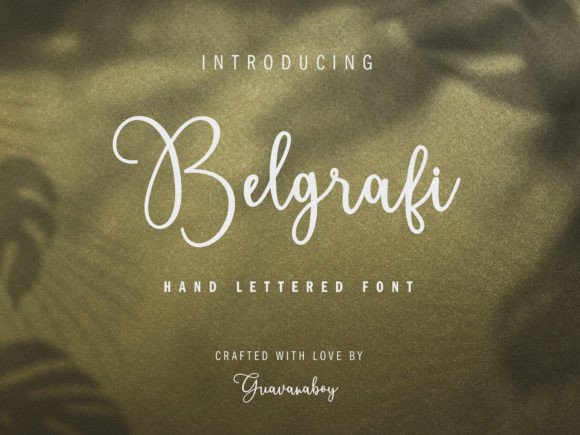
Belgrafi Font: Elevate Your Designs with Elegance and Charm
In the world of typography, few fonts manage to capture the essence of elegance and charm as effectively as Belgrafi. This dazzling script font has been making waves in the design community, and for good reason. With its fluid strokes and intricate details, Belgrafi captivates the eye and adds a touch of sophistication to any design project. Whether you’re working on invitations, branding, or headlines, Belgrafi brings a sense of luxury and style that is hard to match.
What is Belgrafi Font?
Belgrafi is a script font that embodies the perfect blend of elegance and charm. Its fluid strokes and intricate details make it a standout in the world of typography. The font is designed to evoke a sense of luxury and sophistication, making it perfect for high-end designs. With its unique and captivating style, Belgrafi is sure to leave a lasting impression on your audience.
Key Features and Benefits of Belgrafi Font
- Fluid Strokes: Belgrafi’s fluid strokes give it a sense of movement and elegance, making it perfect for designs that require a touch of sophistication.
- Intricate Details: The font’s intricate details add a level of complexity and charm, making it stand out from other script fonts.
- Luxury and Style: Belgrafi brings a sense of luxury and style to any design project, making it perfect for high-end branding and marketing materials.
- Versatility: The font is versatile and can be used for a variety of design projects, including invitations, headlines, and branding.
10 Creative Ways to Use Belgrafi Font in Your Designs
- Wedding Invitations: Belgrafi’s elegant and charming style makes it perfect for wedding invitations and other wedding-related designs.
- Branding and Logo Design: The font’s luxurious and sophisticated style makes it ideal for high-end branding and logo design.
- Headlines and Titles: Belgrafi’s fluid strokes and intricate details make it perfect for headlines and titles that require a touch of elegance.
- Social Media Graphics: The font’s versatility makes it suitable for social media graphics, including Facebook posts, Instagram stories, and Twitter headers.
- Packaging Design: Belgrafi’s luxurious style makes it perfect for packaging design, especially for high-end products.
- Advertising and Marketing Materials: The font’s sophisticated style makes it ideal for advertising and marketing materials, including brochures, flyers, and posters.
- Event Promotions: Belgrafi’s elegant style makes it perfect for event promotions, including concert tickets, festival posters, and charity event invitations.
- Digital and Print Media: The font’s versatility makes it suitable for both digital and print media, including magazines, newspapers, and online publications.
- Logos and Icons: Belgrafi’s unique style makes it perfect for logos and icons that require a touch of elegance and sophistication.
- Web Design: The font’s luxurious style makes it ideal for web design, including website headers, footers, and other design elements.
Typography Tips for Using Belgrafi Font
- Pair with Simple Fonts: Belgrafi’s intricate details and fluid strokes make it a great font to pair with simple fonts that won’t compete with it.
- Use for Headlines: The font’s elegant style makes it perfect for headlines and titles that require a touch of sophistication.
- Experiment with Colors: Belgrafi’s luxurious style makes it suitable for a variety of colors, so don’t be afraid to experiment and find the perfect color scheme.
- Pay Attention to Spacing: The font’s intricate details require careful attention to spacing to ensure that the text is legible and easy to read.
In conclusion, Belgrafi font is a dazzling script font that exudes elegance and charm. With its fluid strokes and intricate details, it captivates the eye and adds a touch of sophistication to any design project. Whether you’re working on invitations, branding, or headlines, Belgrafi brings a sense of luxury and style that is hard to match. By following the typography tips and usage ideas outlined in this article, you can take your designs to the next level with Belgrafi font.